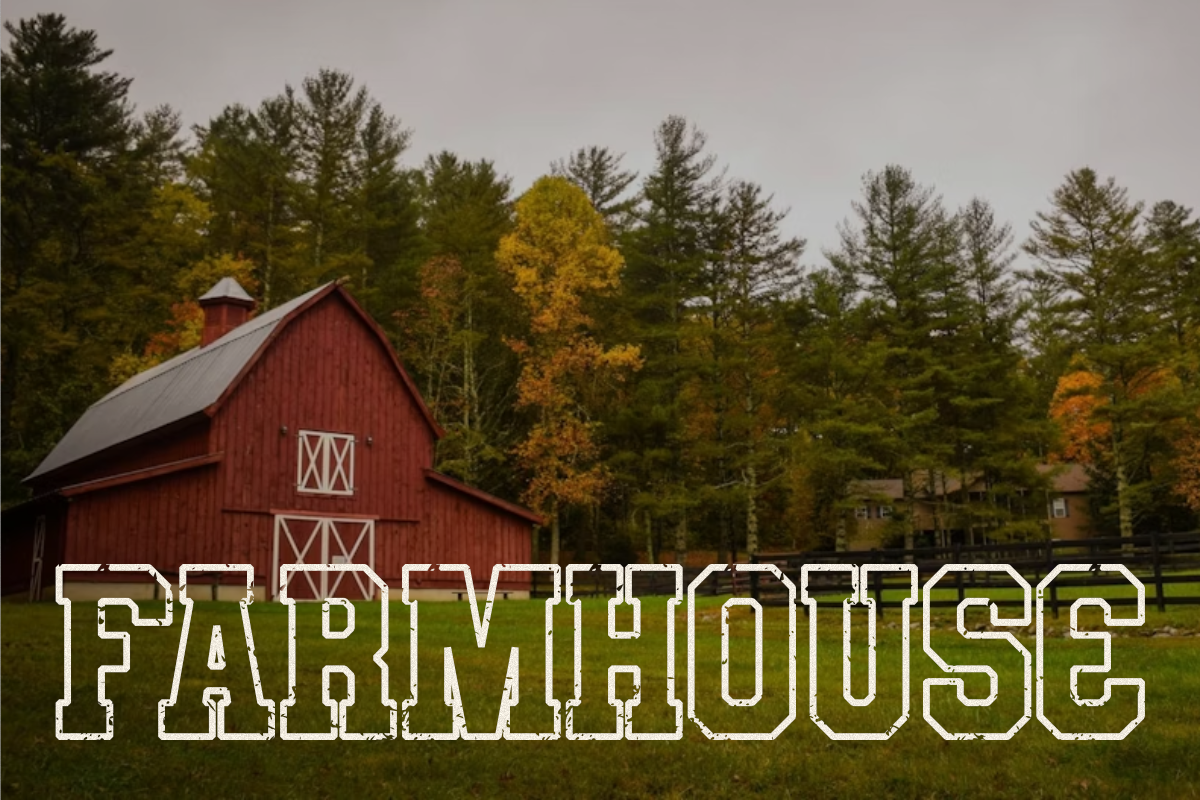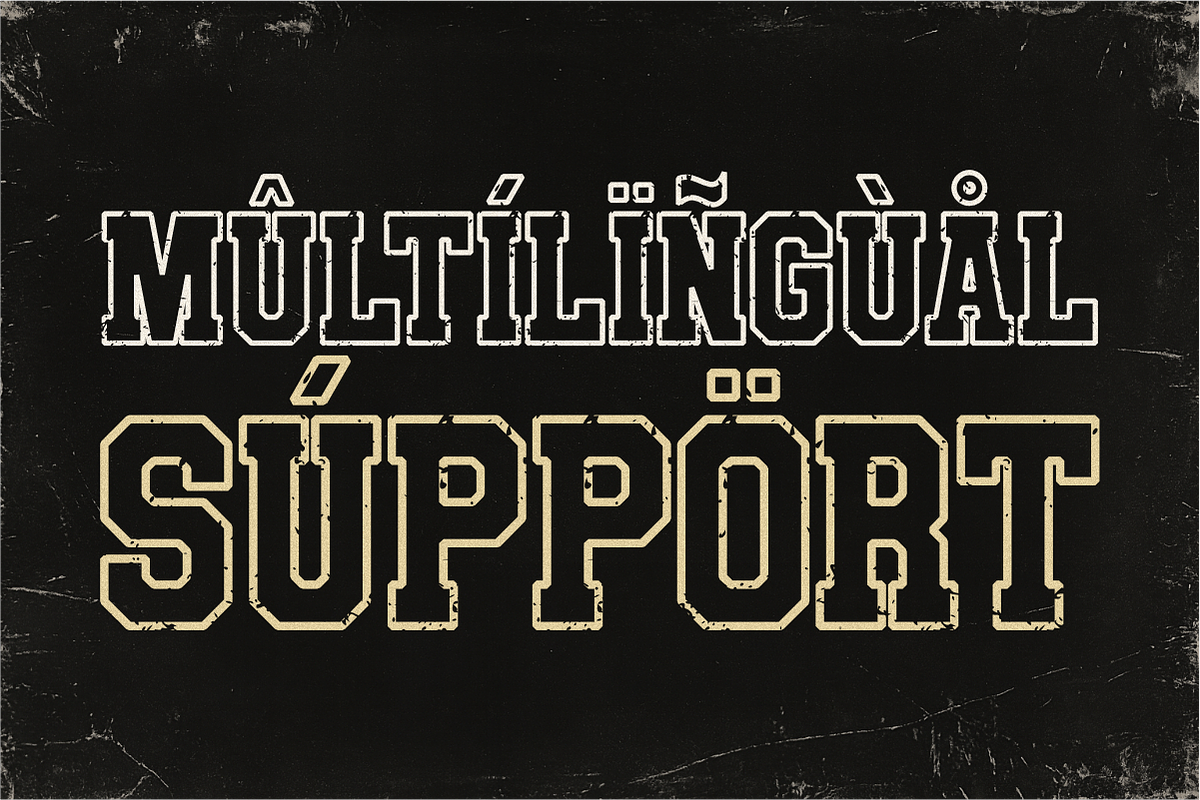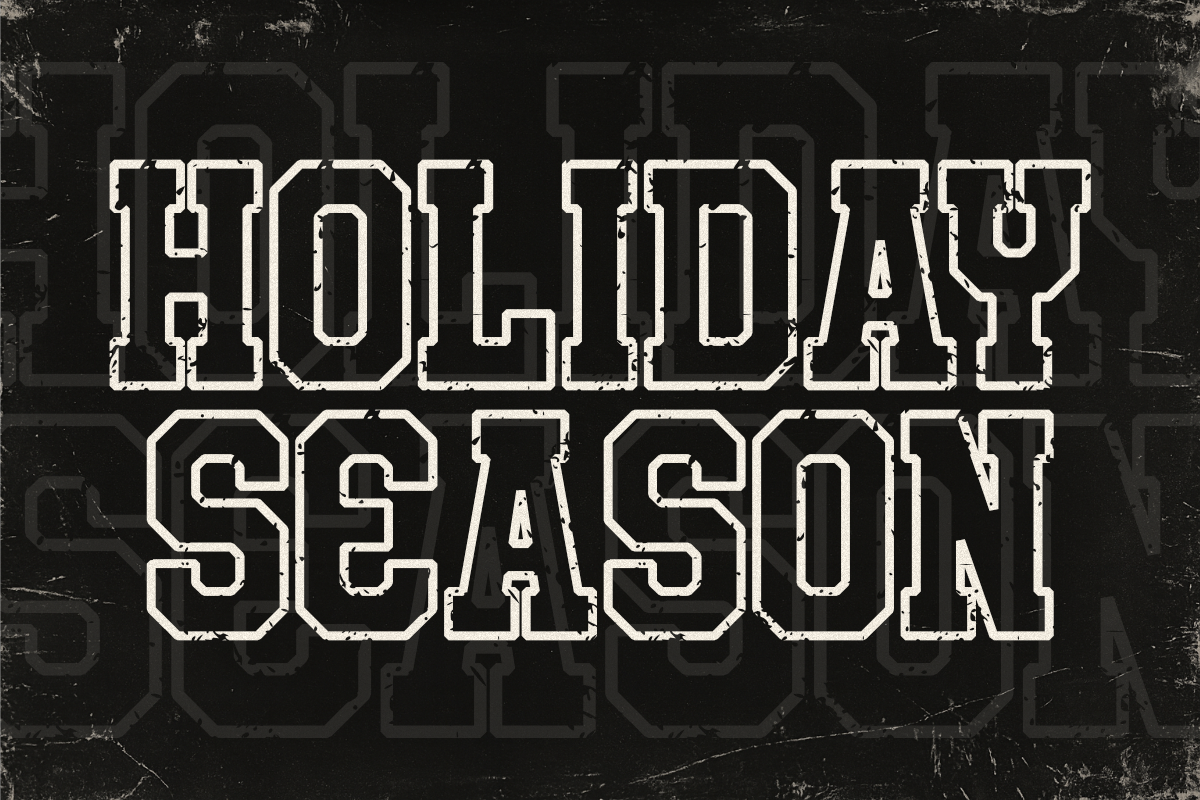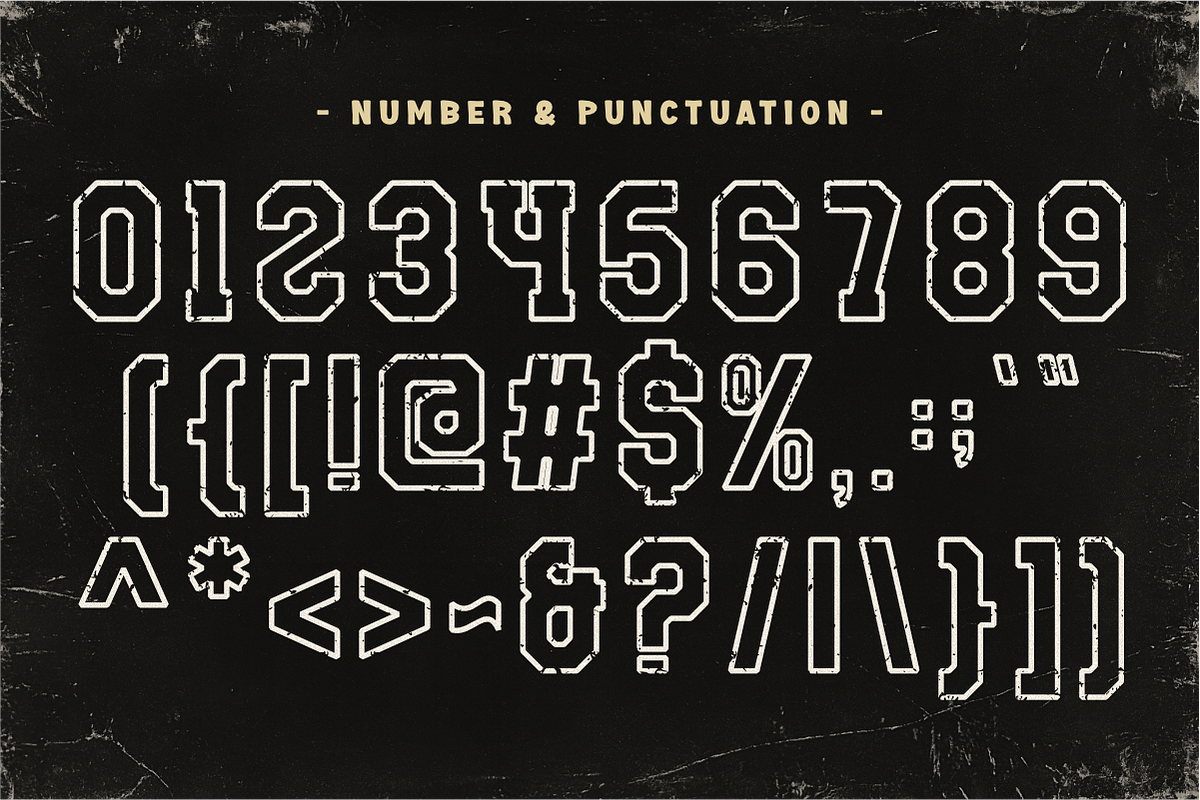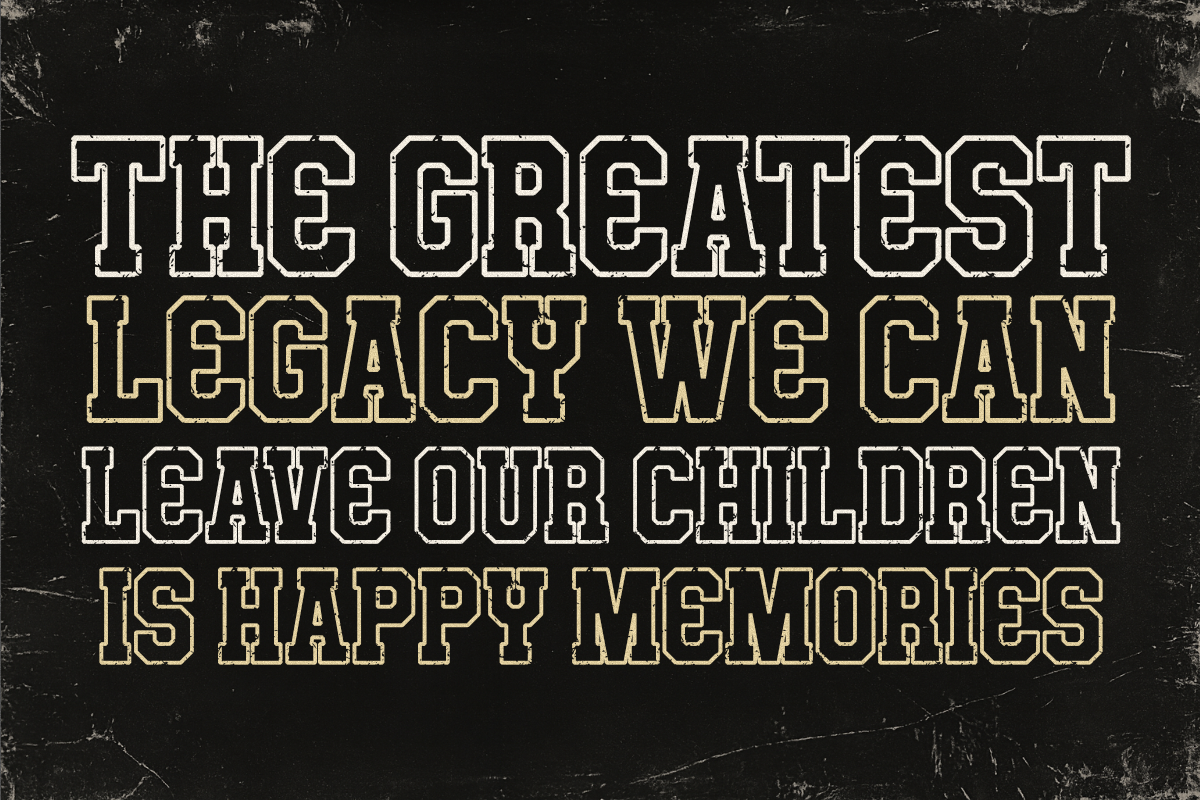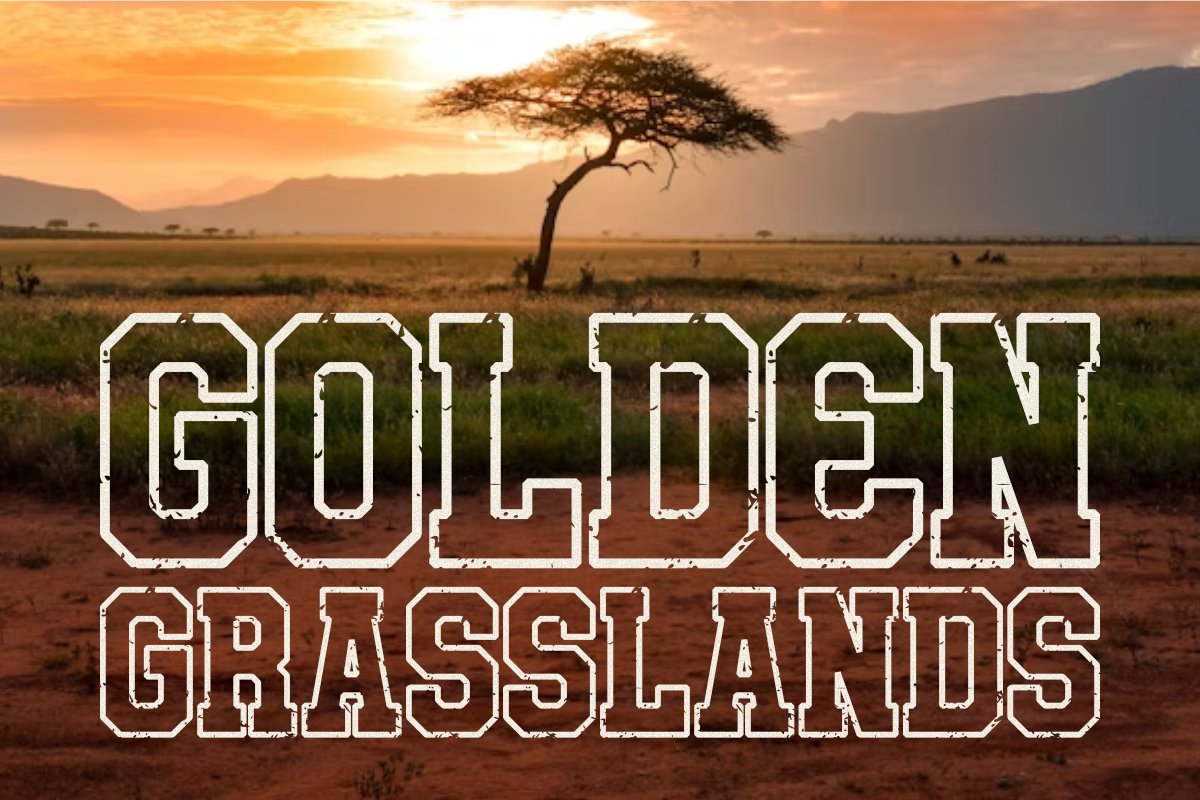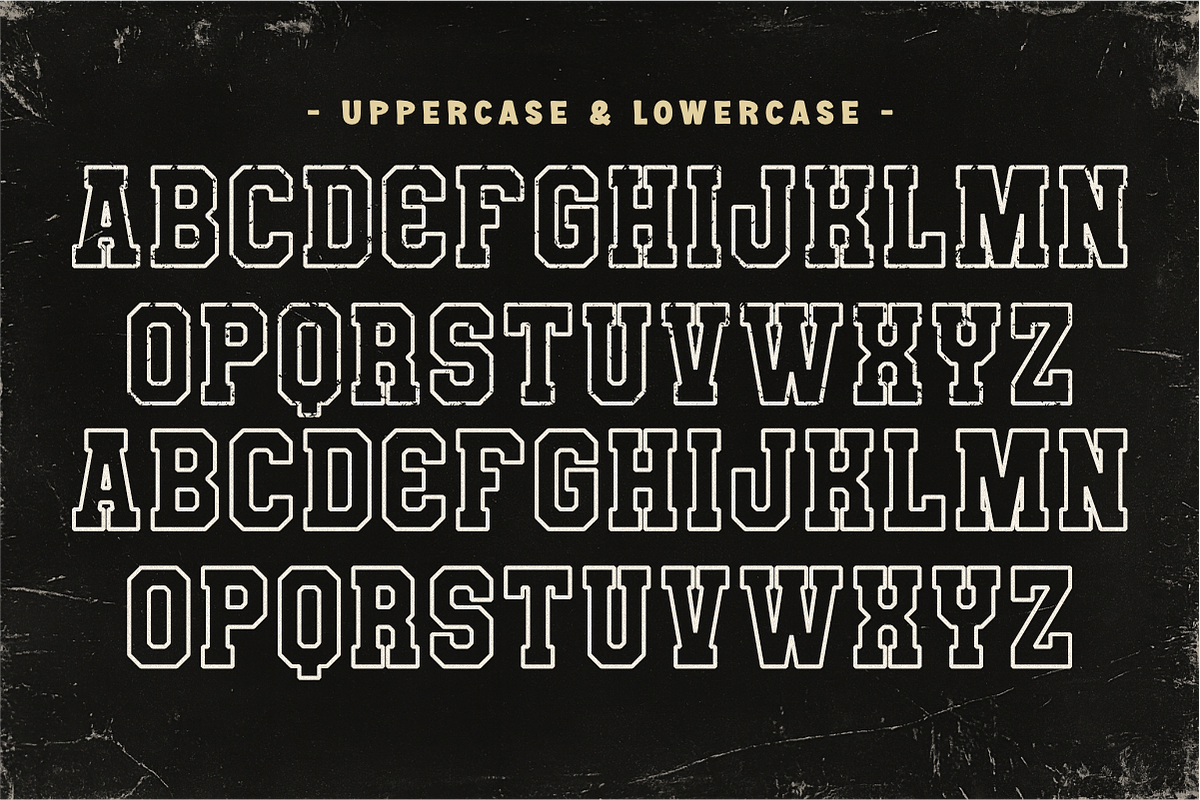
Varsity Season - Outline Slab Serif
Varsity Season is a dynamic and bold Outline Slab Serif font that encapsulates the rugged energy of classic college and athletic aesthetics. Featuring a striking outline structure with a distressed, vintage texture, this all-caps font is perfect for team branding, layered apparel designs, retro sports posters, and large, commanding headlines. It delivers an authentic, energetic, and instantly recognizable visual identity, ideal for merchandise and projects that demand a powerful, old-school feel.